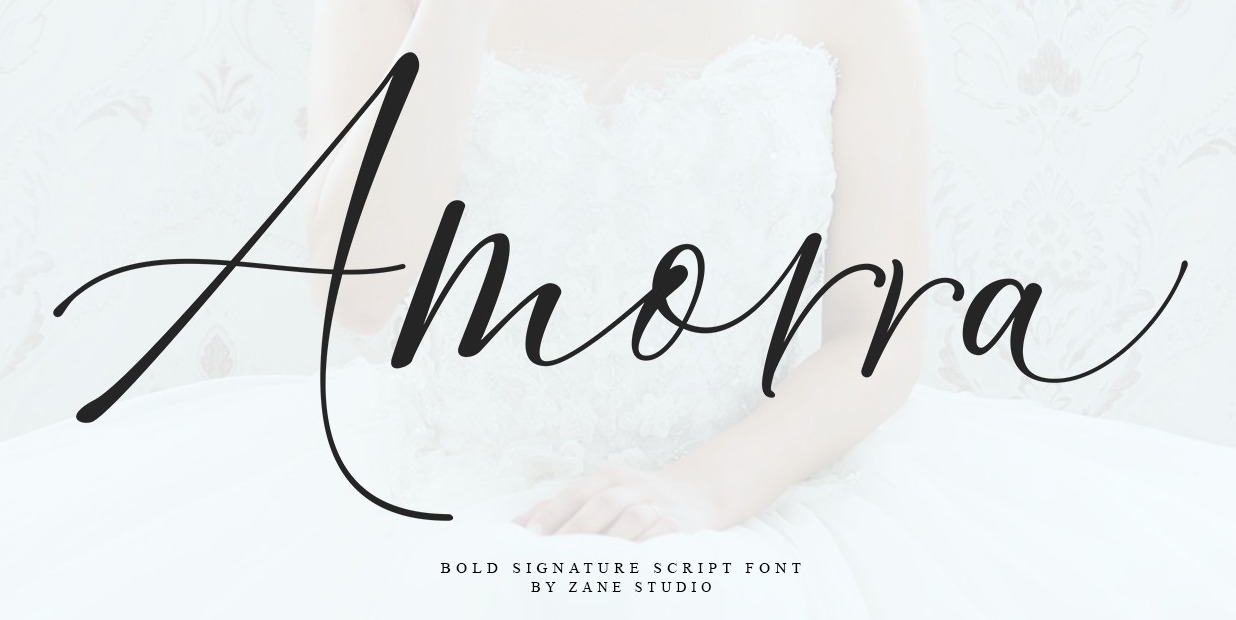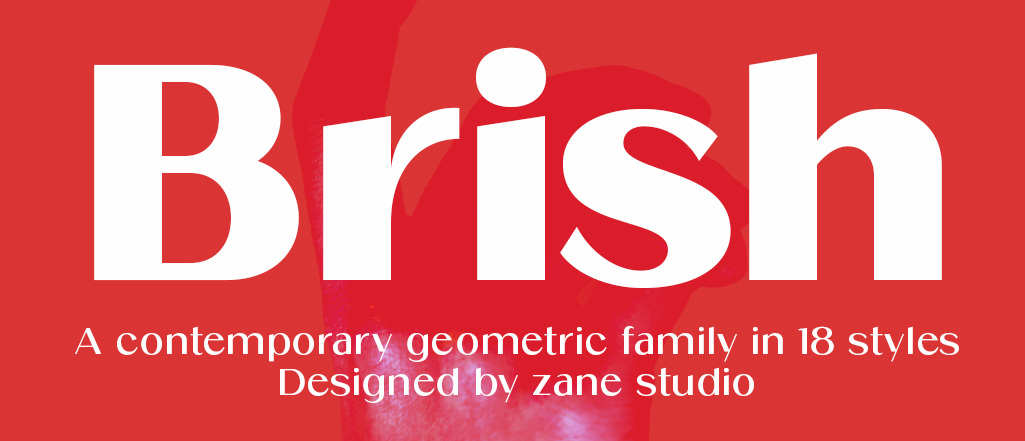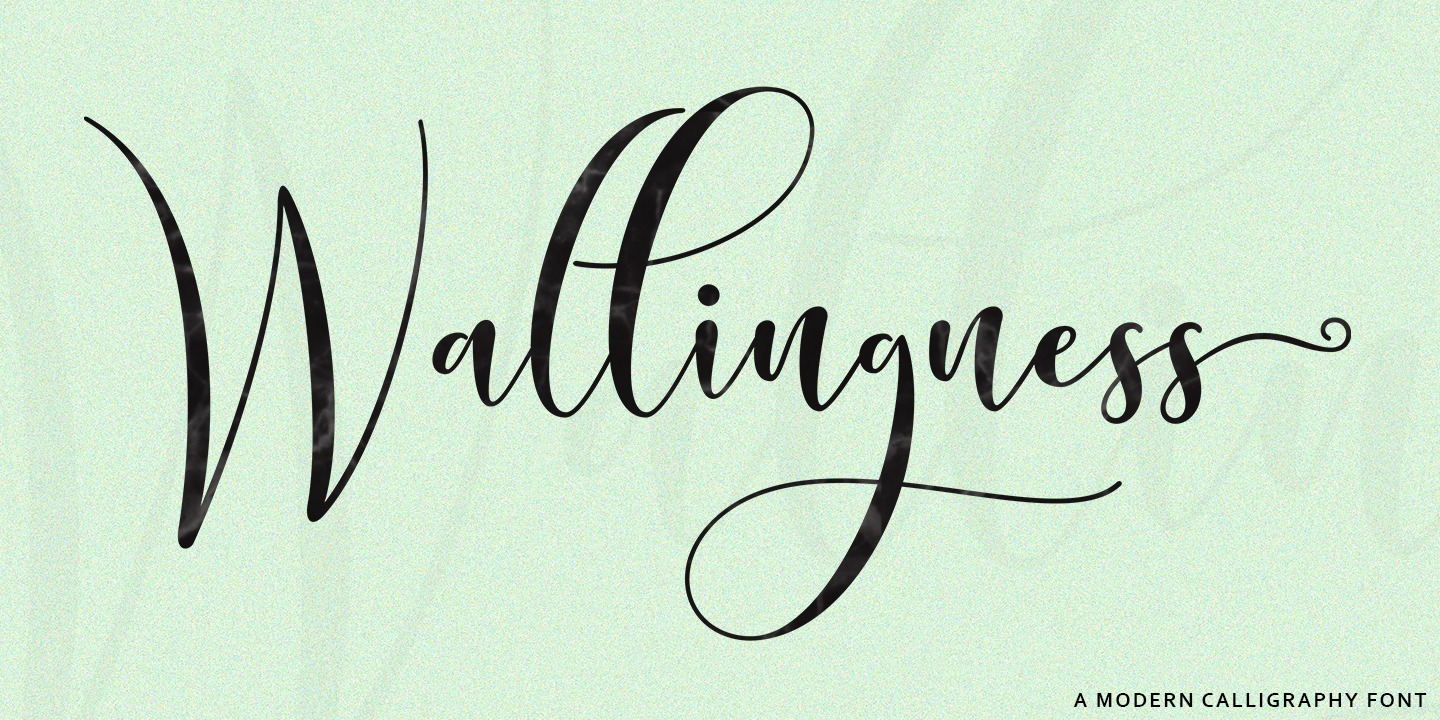
Zane Studio [Mur Zani]
Indonesian designer of these calligraphic script typefaces in 2018: Futhura, Dollygirl Script, Austina, Reghinatha, Bungalow. Typefaces from 2019: Glisten Script (wild calligraphy), Wallingness Script, Ratherbe, Carrolin Script, Gorgeous Duo, Bergenia, Sherilyn, Amorra Script, Strengthen Script, Distoria Script.
Typefaces from 2020: The Glisten Script, Arbhie Script, Almost There Script, Glaudia Script, Jamarius Script, Spalding Script, Hello Sunrise Script, Blossomed Script.
Typefaces from 2021: Hattori (a display serif with rounded wedges), Ambrossius Script (a rabbit ear script), Sea Angel (a display serif), Baby Salmon Script, Botton Love Duo (a scrapbook script), Ariana Script (monolinear), Alara Script (an upright script), Houlding Script (calligraphic), Houlding Script (calligraphic).
Typefaces from 2022: Acosta (an 18-strong serif family that mixes several styles), Brish (an 18-style Peignotian sans).